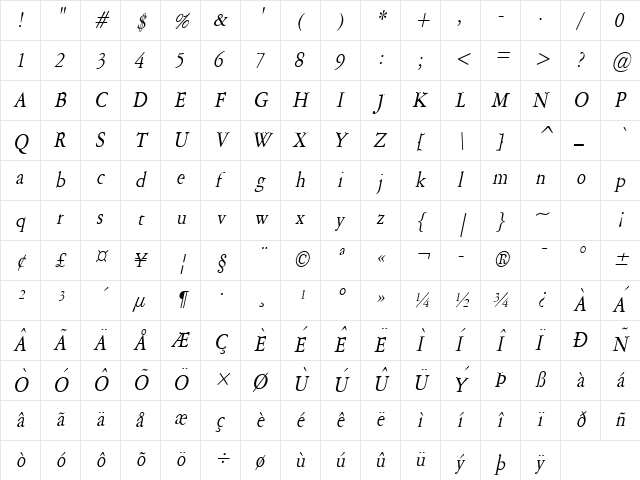
Amery Thin is a composed and adaptable typeface that performs quietly and consistently across a wide range of design contexts. The slanted form adds forward momentum and visual energy. Its slender proportions lend an understated elegance to any composition.
Pro Tip: Use Amery Thin for emphasis, pull quotes, and subheadings where its slanted energy can add rhythm to the layout.